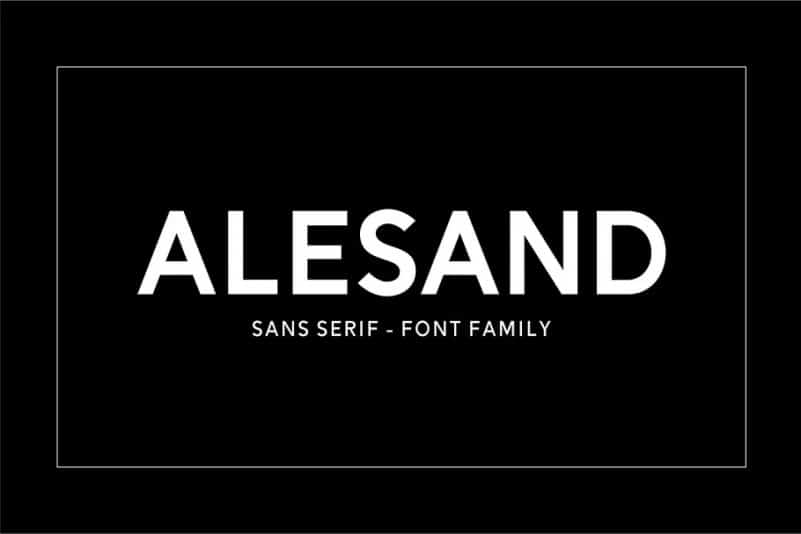
Alesand Font
Introducing Alesand Sans Font Family. It’s a low contrast geometric sans serif with large open counters which give the typeface a somewhat bold and contemporary appearance. Alesand Sans Font Family A new contemporary font family designed with balance and versatility.
The addition with outline and extrude font styles, makes it very simple to coat these fonts together perfectly. Simply duplicate the “Extra Bold” layer and change the setting to “Outline, Extrude”, and the type will be automatically offset for you!